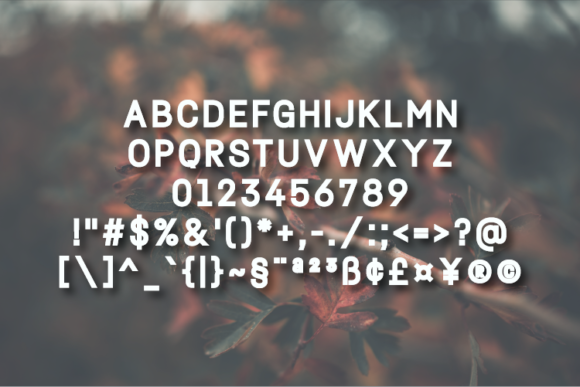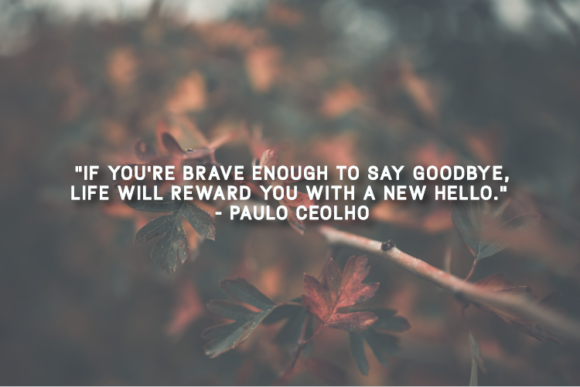
Introduction to Rodemond Font
As designers, we’ve all been there – staring at a blank canvas, struggling to find the perfect font to bring our creative project to life. But what if I told you that there’s a font that can change everything? A font that’s not only visually stunning but also versatile enough to elevate any design, no matter the topic or style.
Enter the Rodemond Font, a sleek and modern sans serif font that’s about to become your go-to design resource. With its clean lines, subtle curves, and transparent background, this font is a high-quality addition to any design library. And the best part? It’s available for a free download, making it an incredibly valuable asset for designers of all levels.
Whether you’re working on a logo, a website, or a social media campaign, the Rodemond Font is sure to impress. Its simplicity and elegance make it a perfect choice for any creative project, and its free download means you can experiment with it risk-free. So why wait? Discover the power of the Rodemond Font and take your designs to the next level.
Key Features of Rodemond Font
- High-quality, professional design resource ideal for creative projects.
- Transparent background for seamless integration into designs.
- Available in 4 different styles: Regular, Italic, Bold, and Bold Italic.
- Each style is meticulously crafted with precise details and smooth lines.
- Supports a wide range of languages, making it a versatile choice for global projects.
Honest Review: Rodemond Font
I recently had the opportunity to work with the Rodemond Font, and I must say it’s been a valuable addition to my design resource library. This free download has been a game-changer for my creative project needs, providing me with the versatility to experiment with various typography styles.
One of the standout features of the Rodemond Font is its high-quality design, which makes it perfect for projects that require a professional touch. The font’s clean lines and sophisticated feel make it ideal for use in modern designs, from brochures to websites.
- ✨ High-quality design that exudes professionalism
- ✨ Perfect for use with transparent backgrounds, adding a touch of elegance to any design
- ⚠️ Limited character set, which may require additional font pairing for more complex projects
- ⚠️ Not ideal for use in very small font sizes, where the text may become difficult to read
Overall, I’m thoroughly impressed with the Rodemond Font. While it may have some limitations, its strengths far outweigh its weaknesses, making it a valuable addition to any designer’s toolkit. Whether you’re working on a personal or professional project, the Rodemond Font is definitely worth checking out.
Rodemond Font is a versatile and elegant font that can be used in a variety of creative projects. It’s a great addition to any design resource collection, and it’s available for free download.
To get the most out of Rodemond Font, try pairing it with other elegant fonts and using it with a transparent background to create a unique visual effect. You can also experiment with different font sizes and styles to add emphasis to your design.
Common Use Cases for Rodemond Font
Rodemond Font is perfect for a variety of creative projects, including logos, business cards, invitations, and more. Its elegant and sophisticated design makes it a great choice for any project that requires a touch of luxury and sophistication.